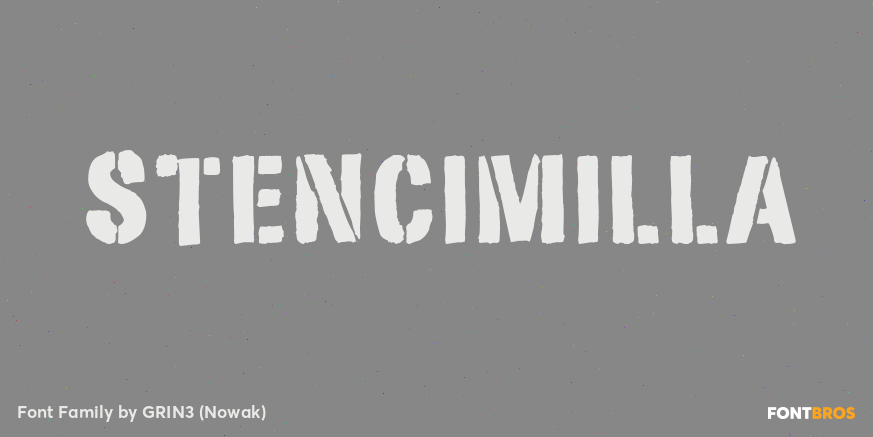
Stencimilla
About Stencimilla
Stencimilla is a distressed stencil typeface with two different sets of capital letters – no lowercase. Language support includes Western, Central and Eastern European character sets, as well as Baltic and Turkish languages.